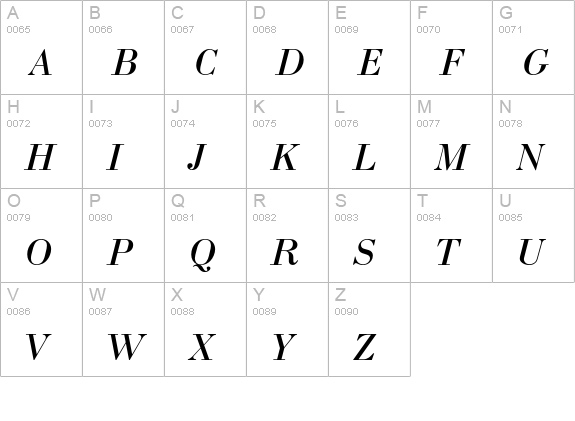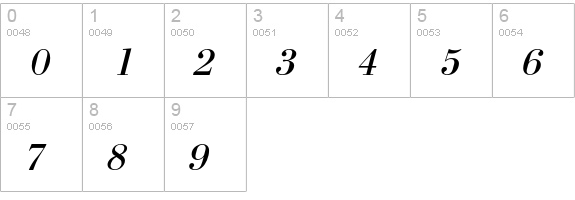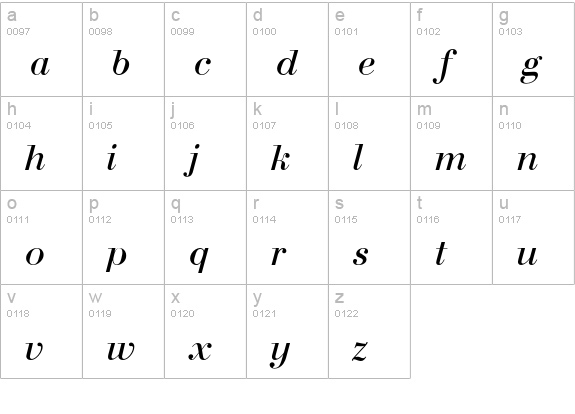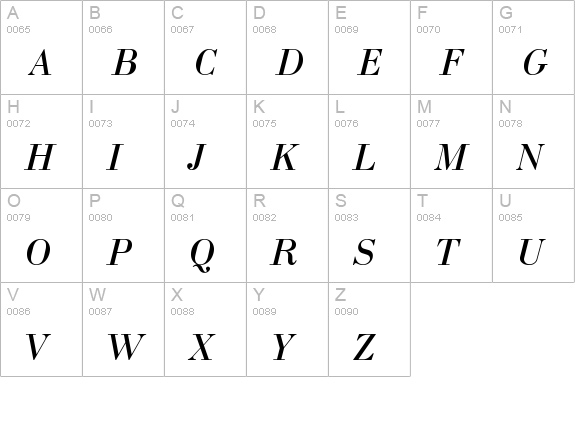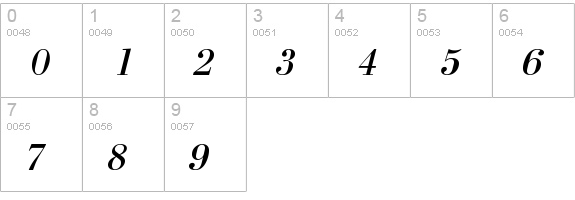
PT Bodoni Italic Cyrillic Font Details
PT Bodoni Italic Cyrillic is a distinctive, italic variant in the PT typeface family \xE2\x80\x94 well suited to design and typography projects.
PT Bodoni Italic Cyrillic font is a sophisticated and elegant typeface that exudes timeless beauty. Its graceful curves and delicate serifs give it a classic yet contemporary feel, making it ideal for a wide range of design projects. This font is perfect for creating stylish headlines, elegant invitations, and refined branding materials. The slanted italic style adds a touch of flair and sophistication to any text, making it stand out with a touch of class. What makes PT Bodoni Italic Cyrillic font even more appealing is that it is available for free download at FontsMarket.com. This means that you can easily access this high-quality font without any cost, making it a valuable addition to your design toolkit. Whether you're a professional designer or a hobbyist looking to elevate your projects, PT Bodoni Italic Cyrillic font is a versatile and visually striking choice that is sure to impress. Download it today and add a touch of elegance to your designs.